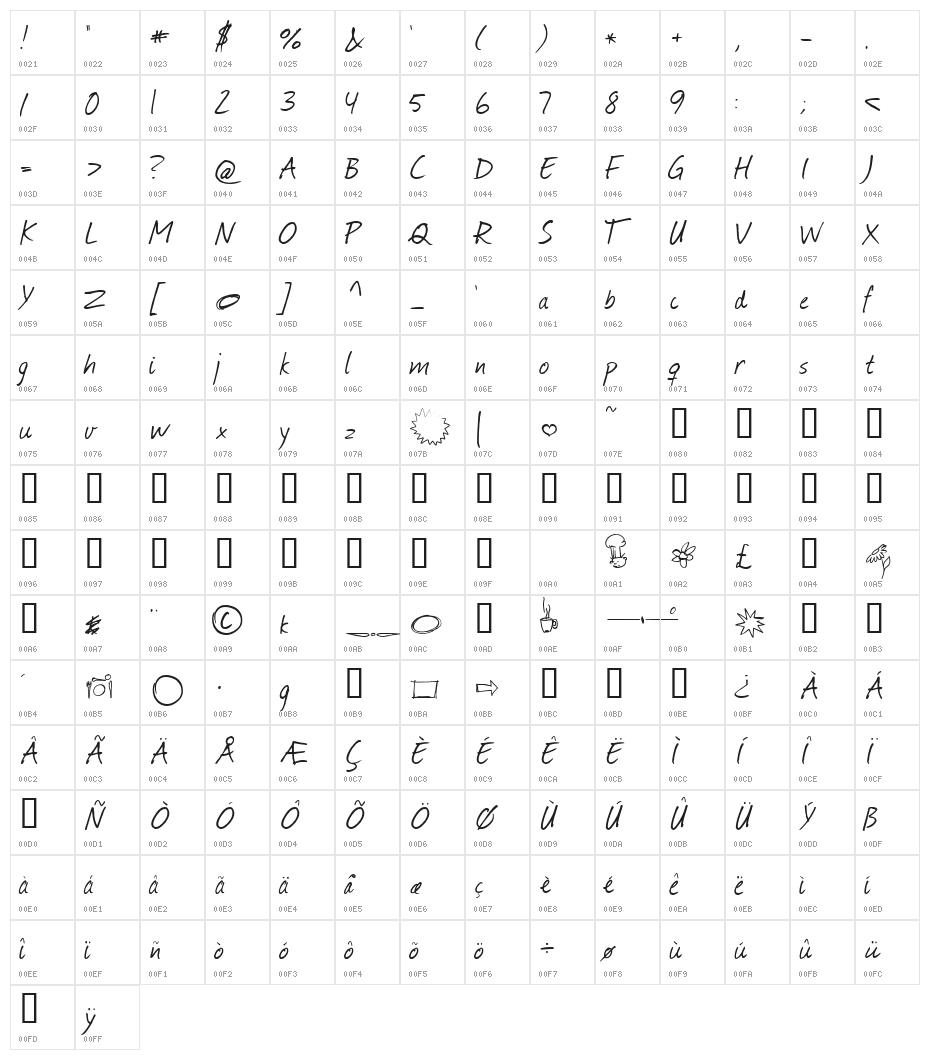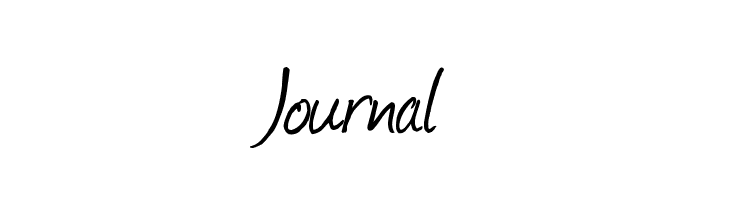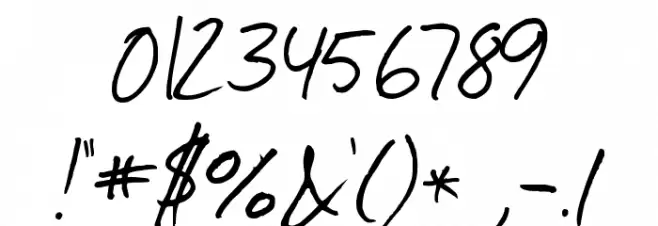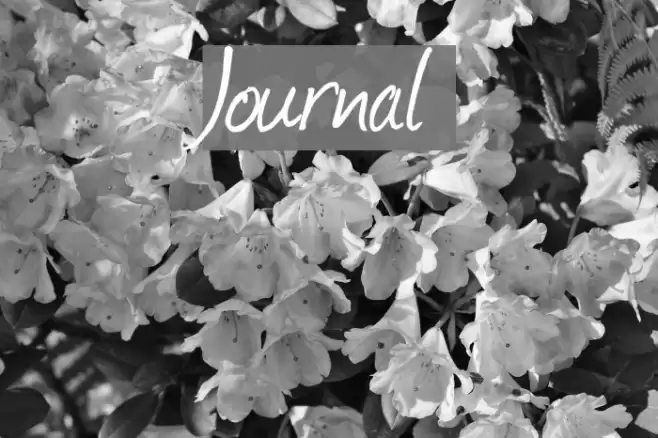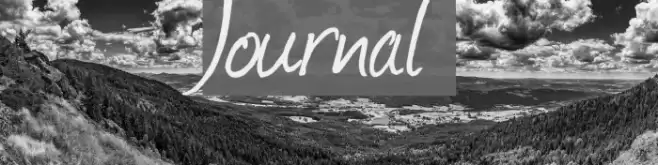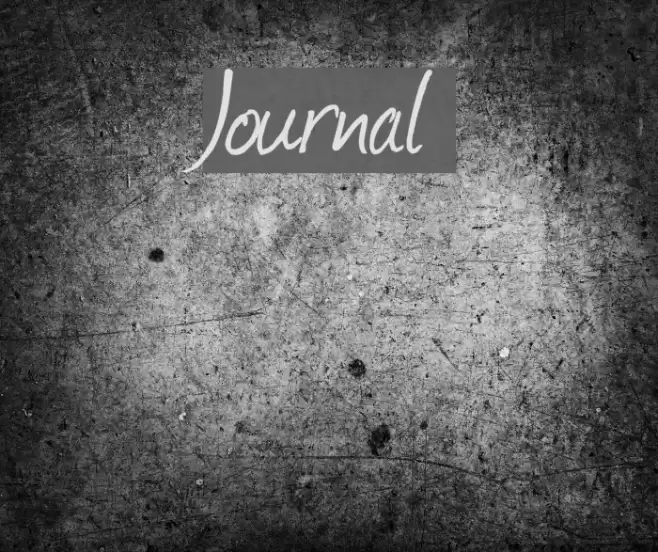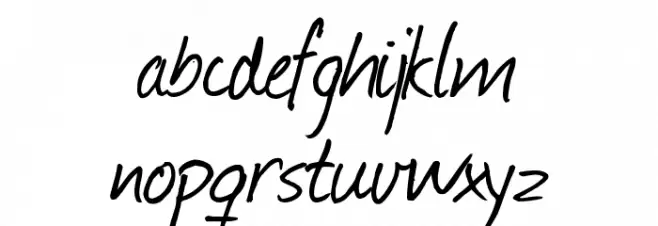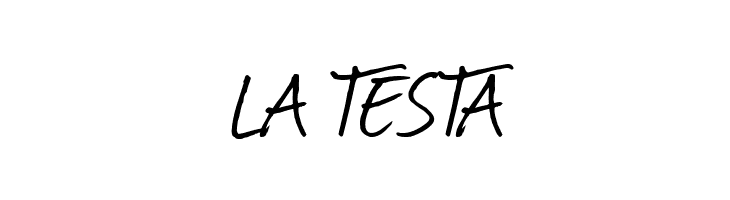
Journal Font
Journal Description
This font features a dynamic and expressive handwritten style, characterized by its fluid and slightly slanted letterforms. The strokes are varied, with a natural and casual appearance that mimics the flow of handwriting. The uppercase letters are bold and confident, while the lowercase letters maintain a consistent rhythm and balance. Numbers and special characters are integrated seamlessly, maintaining the overall aesthetic. This font exudes a personal and approachable vibe, making it ideal for projects that require a touch of individuality and warmth.
| Overall Style | Casual, Personal |
| Use Case | Logos, Invitations, Personal Branding |
| Proposed Projects | Ideal for personal branding, invitations, greeting cards, and creative projects that require a personal touch. |